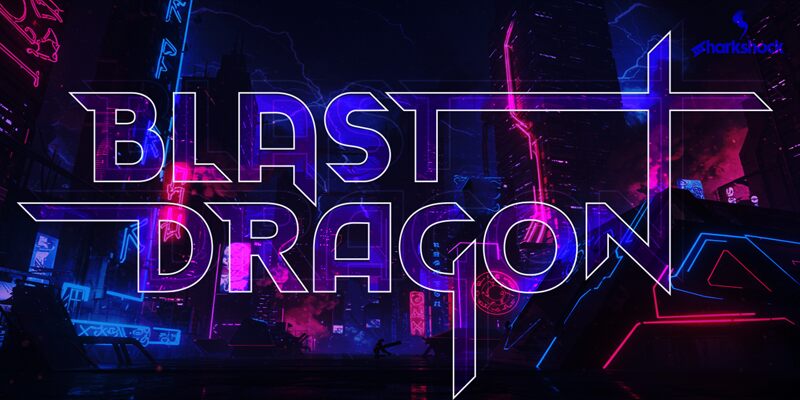
Blast Dragon font
Blast Dragon
Blast Dragon is an edgy, all-caps display font with a vigorous nature. This free font features a blend of familiar elements, rounded corners, and unexpected extensions, as illustrated in glyphs such as A and 7. Most uppercase characters feature lines that terminate at a 45-degree angle, ensuring consistency throughout, particularly within serifs and numbers. Several ascenders and descenders extend outward in a blade-like fashion, creating captivating type that keeps the eyes moving. Use Blast Dragon for sports logos, anime posters, or web graphics.